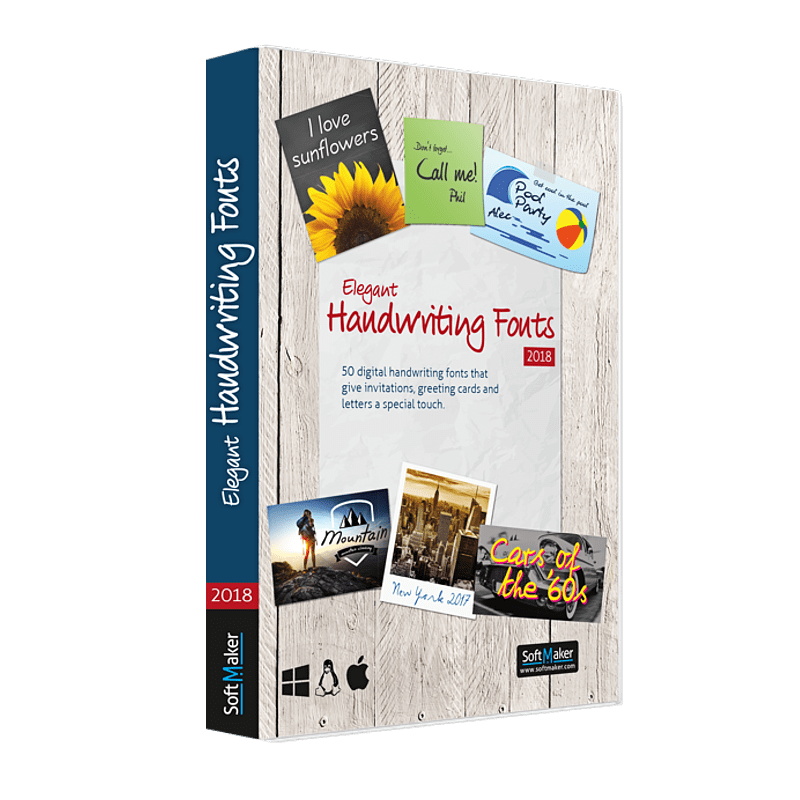
Digitized handwriting fonts are the perfect way to give documents an authentic “handwritten” look. SoftMaker offers SoftMaker Elegant Handwriting Fonts package with a large selection of elegant, attractive handwriting fonts. With this Handwriting Fonts collection, all your words can carry a special, personal touch without the time and effort of writing by hand. This font collection includes 50 beautifully crafted handwritten typeface styles to express every mood. From cool and casual to fancy and flourished, you’ll find a big collection of fonts perfect for every occasion, from quick and friendly notes to formal wedding invitations.
Best of all, these high-quality fonts aren’t skimpy sets, but full fonts that include the complete range of Western European accented characters and the Euro currency sign. No matter what you want to say, the SoftMaker Elegant Handwriting Fonts 2018 collection will help you say it beautifully with a personal touch.
These high-quality fonts not only have the euro symbol but also complete character sets for the Western European languages. Simply write your texts on the computer and format them in one of the handwriting in this package. You will be amazed at how good your printed matter will look with this handwriting.
- 50 beautifully crafted handwritten typeface